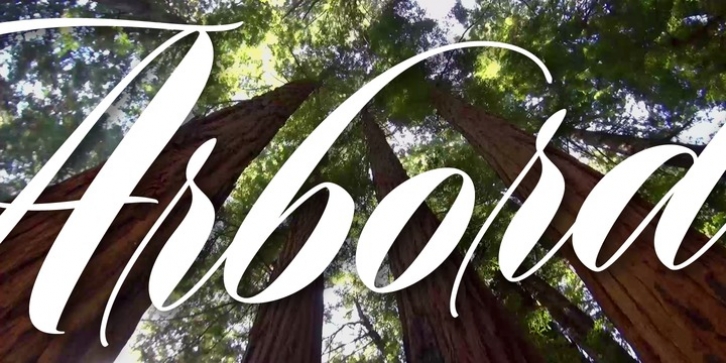
Arbordale was designed by Stephen Miggas and published by Aerotype. Arbordale contains 2 styles and family package options.
OpenType users benefit from an array of alternate glyphs for lowercase characters including non-connecting contextual alternates for word endings. Other features include crossbar ligatures for common letter pairings, case-sensitive quotes and smart apostrophes. Arbordale Pro extends the character set to support Eastern European and Baltic languages.